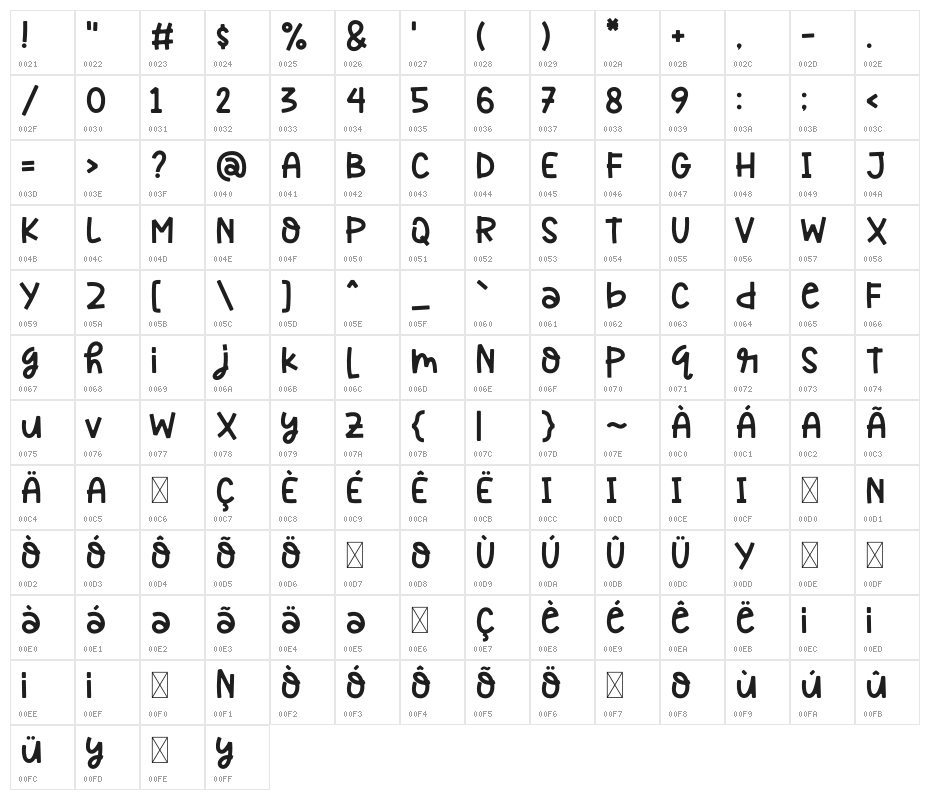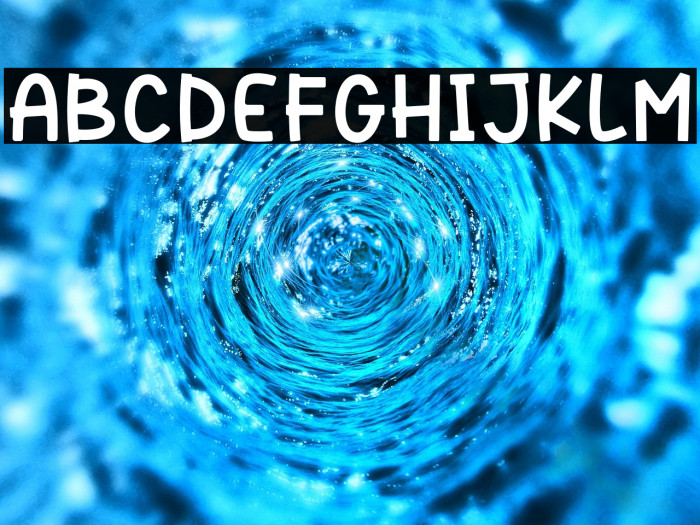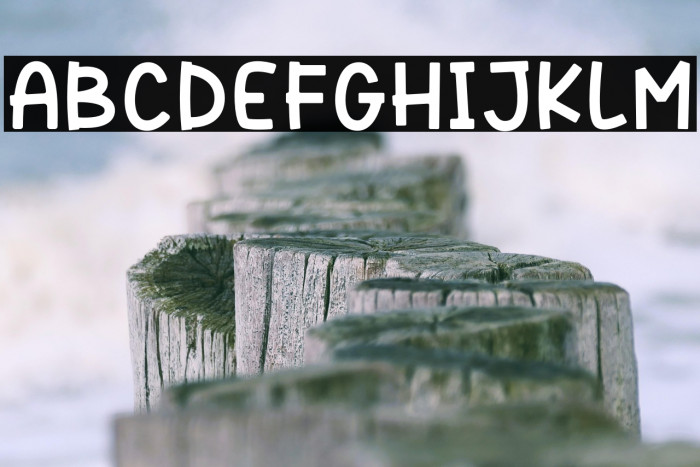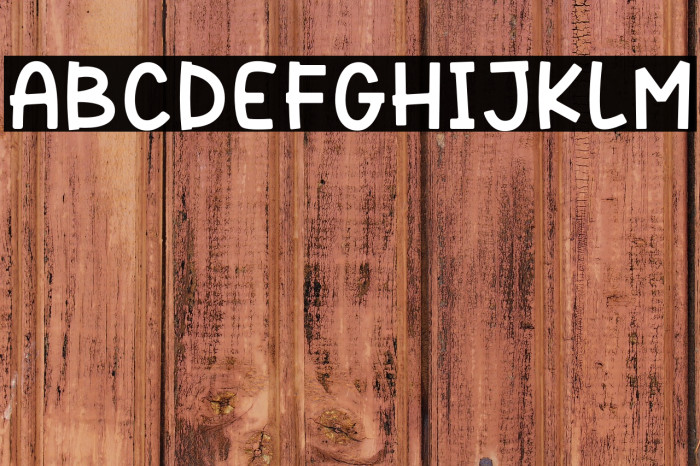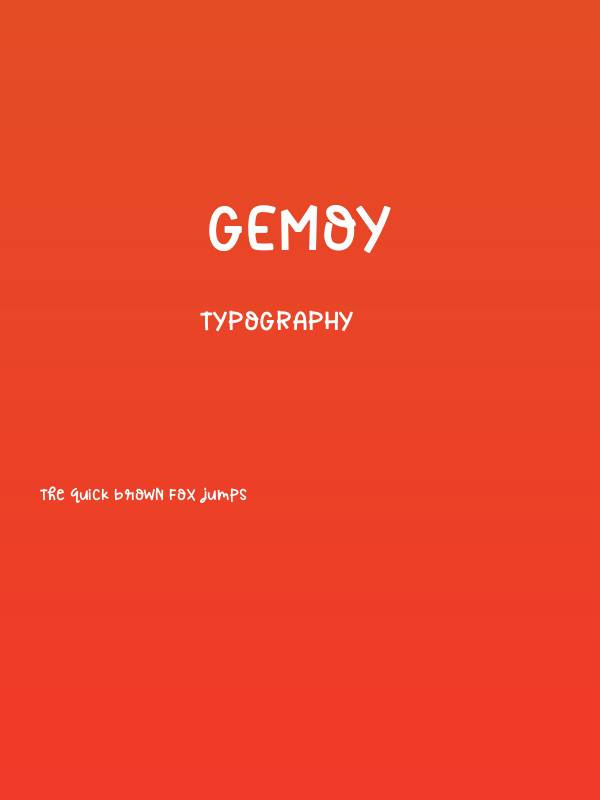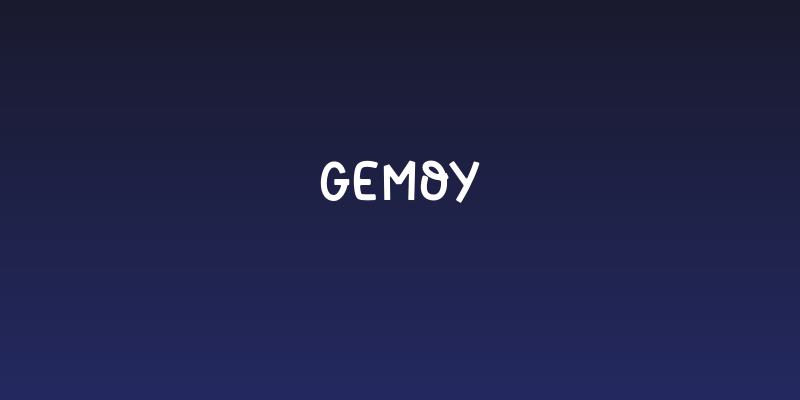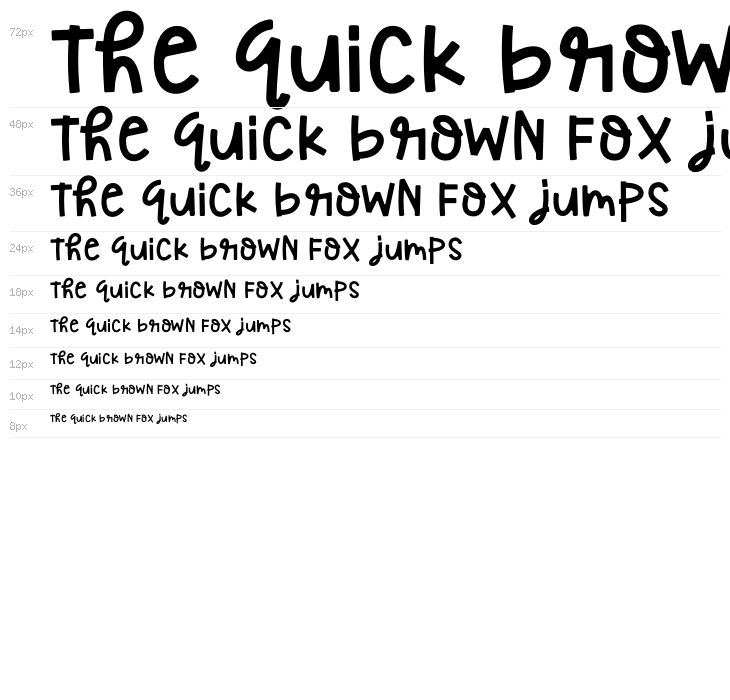
Gemoy Font
Gemoy Description
This playful and bold font features a handwritten style with a casual and friendly appearance. The characters are rounded and slightly irregular, giving it a whimsical and approachable feel. The uppercase and lowercase letters maintain a consistent weight, while the numbers and special characters complement the overall style. The font's design is perfect for projects that require a touch of fun and creativity, such as children's books, greeting cards, or playful branding. Its unique character shapes and bold presence make it stand out, while still being legible and versatile.
| Proposed Projects | Ideal for children's books, greeting cards, playful branding, and creative projects. |